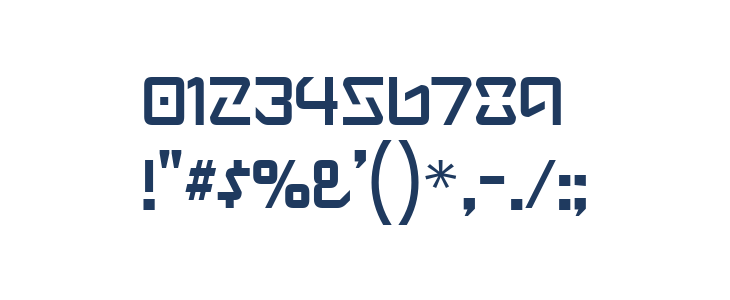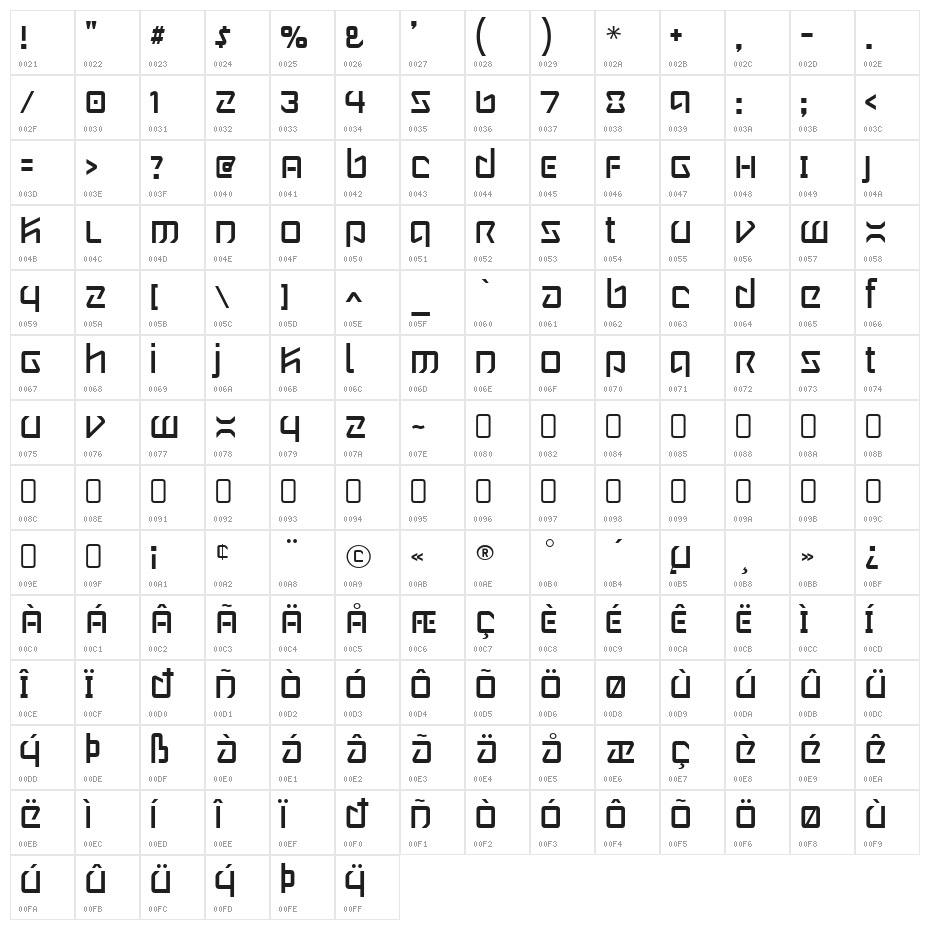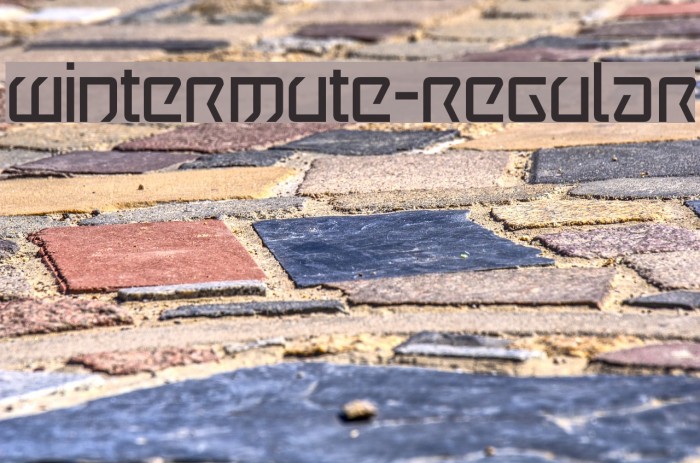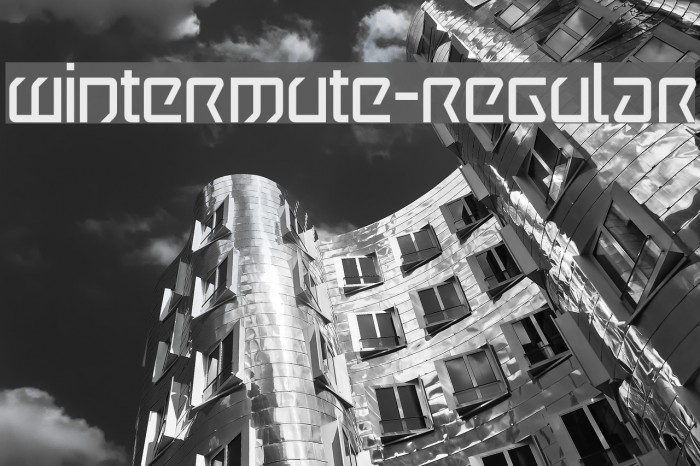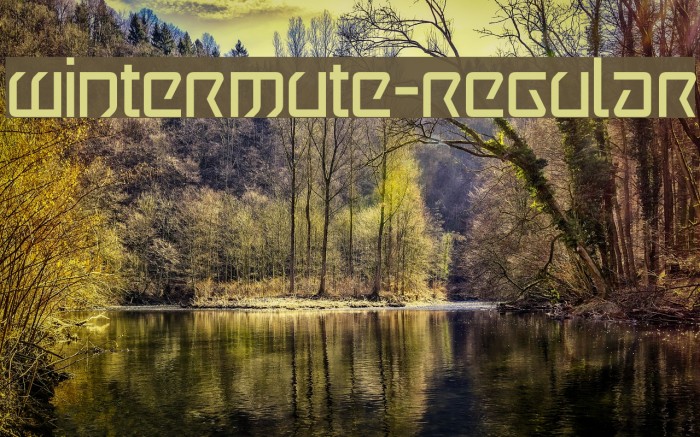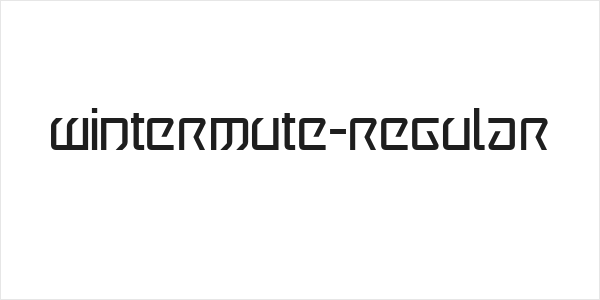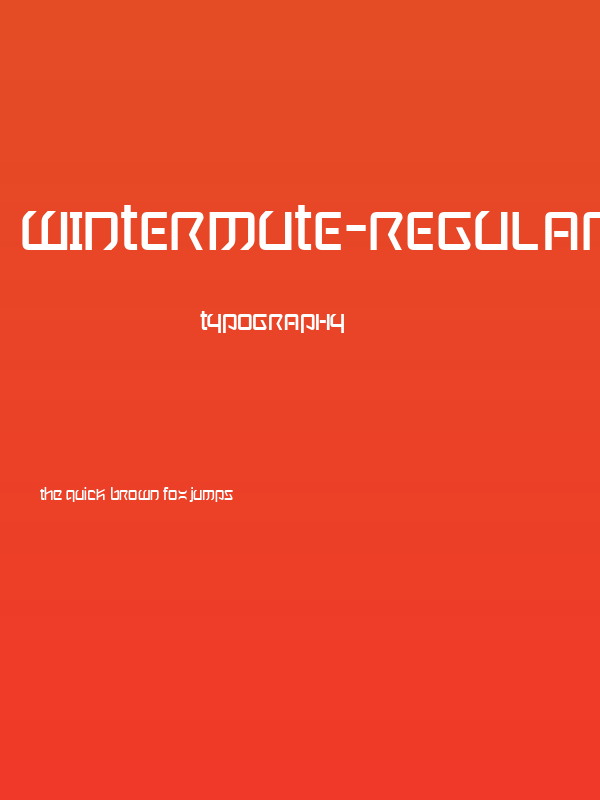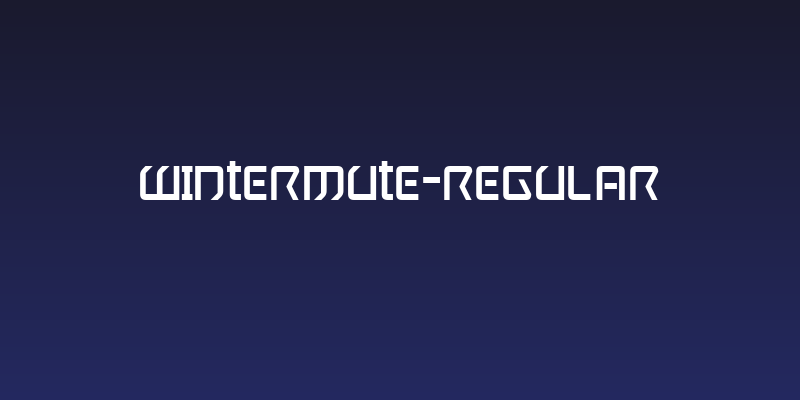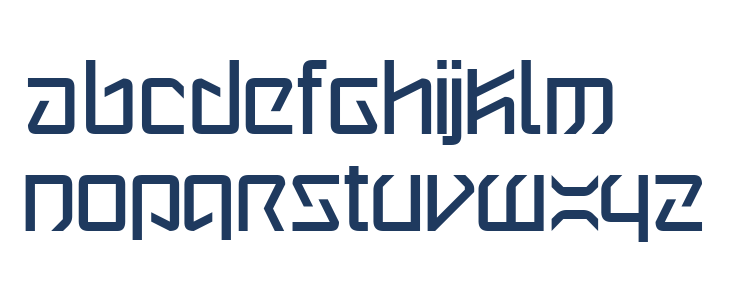
Wintermute-Regular Font
This font features a futuristic and geometric design, characterized by its angular and sharp edges. The letters are constructed with a consistent stroke width, giving it a uniform appearance. The uppercase and lowercase letters maintain a similar height, creating a cohesive look. The numerals and special characters follow the same design principles, ensuring a seamless integration with the alphabet. Its modern aesthetic makes it suitable for digital and tech-related projects, where a sleek and contemporary feel is desired.
| Use Case | Logos, Headlines, Digital interfaces |
| Proposed Projects | Ideal for tech branding, digital interfaces, video game graphics, and sci-fi themed projects. |